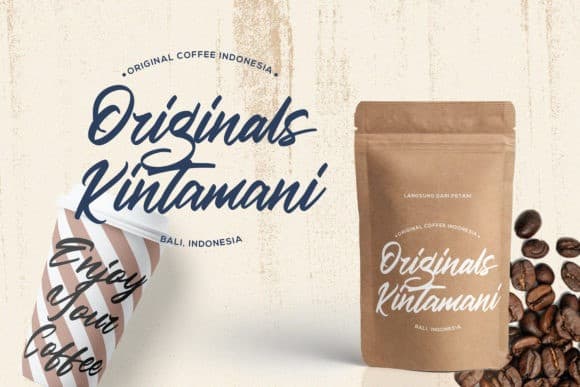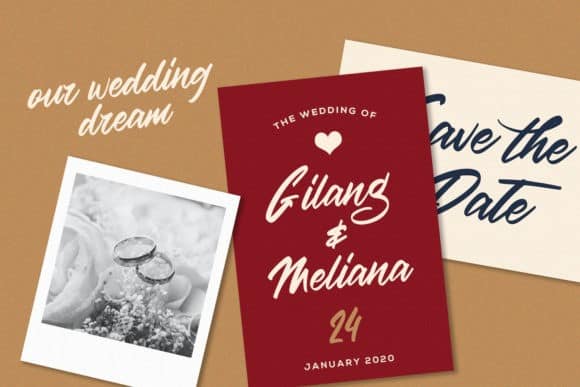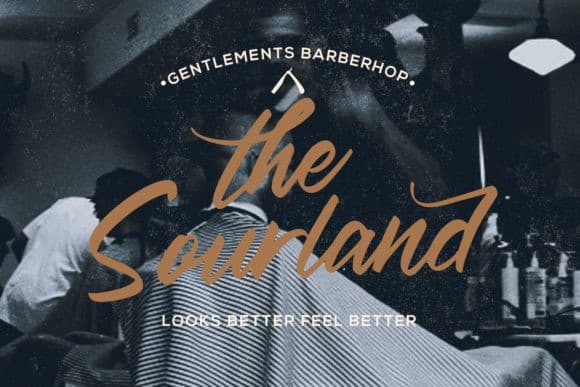
Haredang Script Font
Introducing Haredang Script Font is a casual chic Calligraphy typeface with magical pressure. It’s designed and shared by StringLabs. It’s a flowing handwritten font, described by an elegant touch, perfect for your favorite projects. Fall in love with its incredibly distinct and timeless style and use it to create spectacular designs!. Perfect to use for Logotype, Letterhead, Poster, Apparel Design, Label and etc.